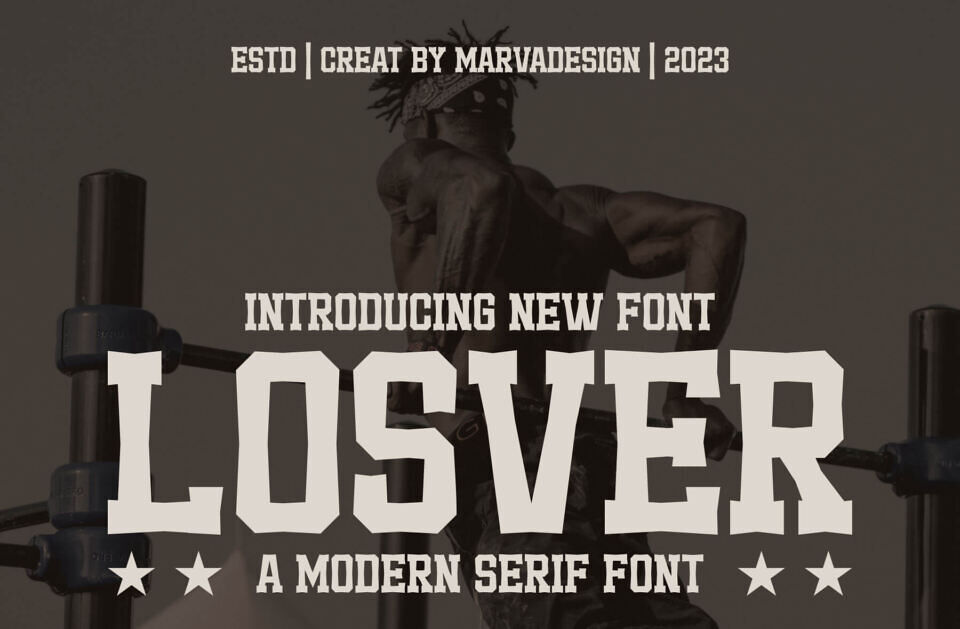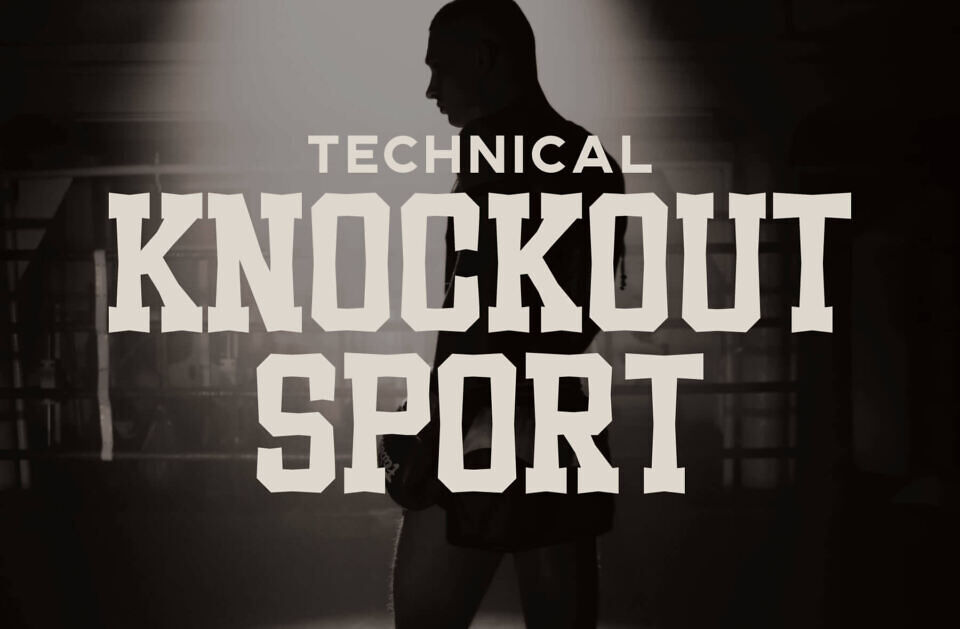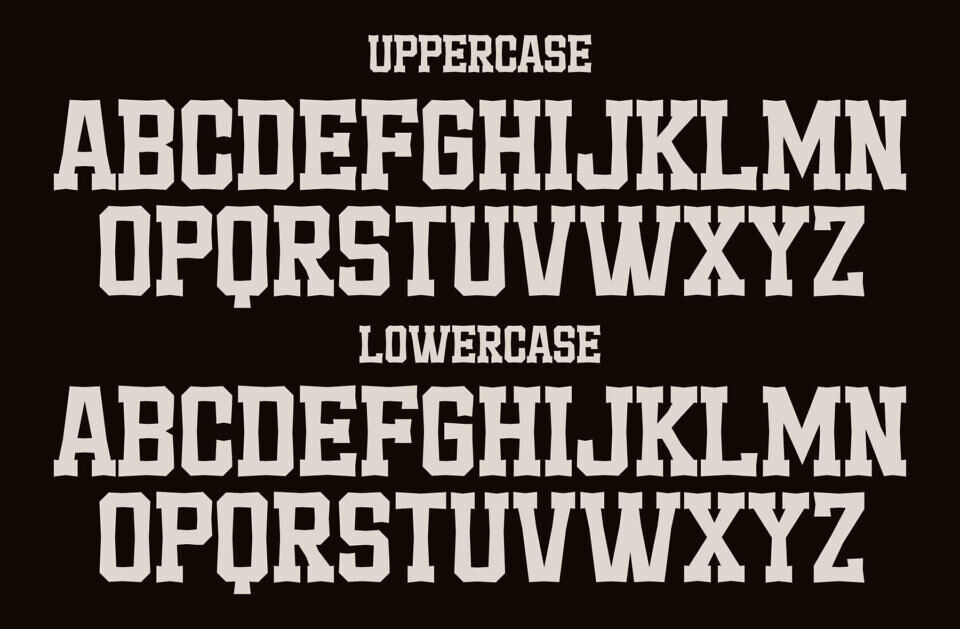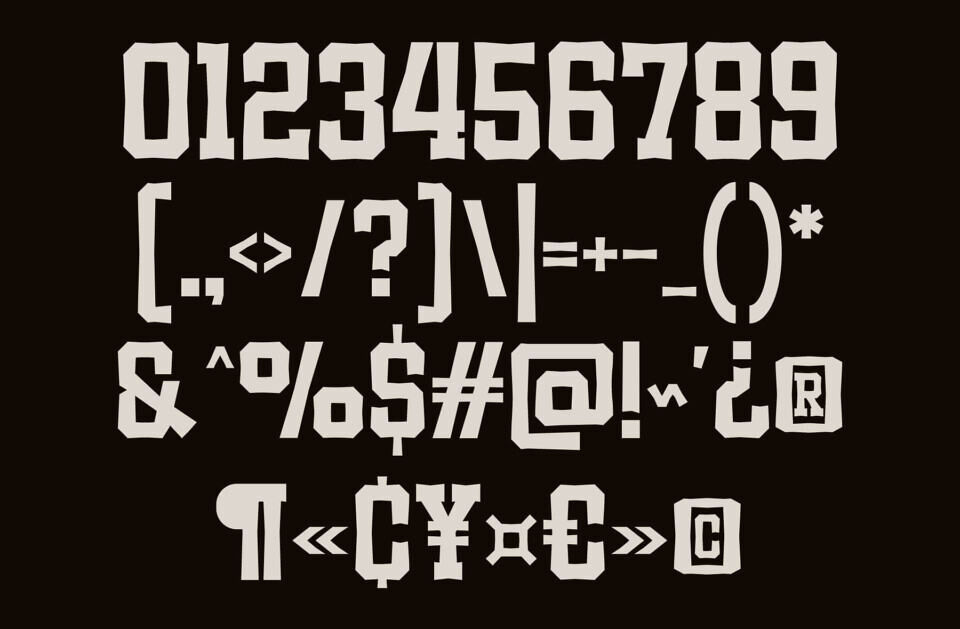
Losver Font
Introducing Losver Font, a bold and authentic display font. The font is suitable for any branding project like logo, Template Design, Product and many more. Losver is Outstanding in a wide range of contexts.